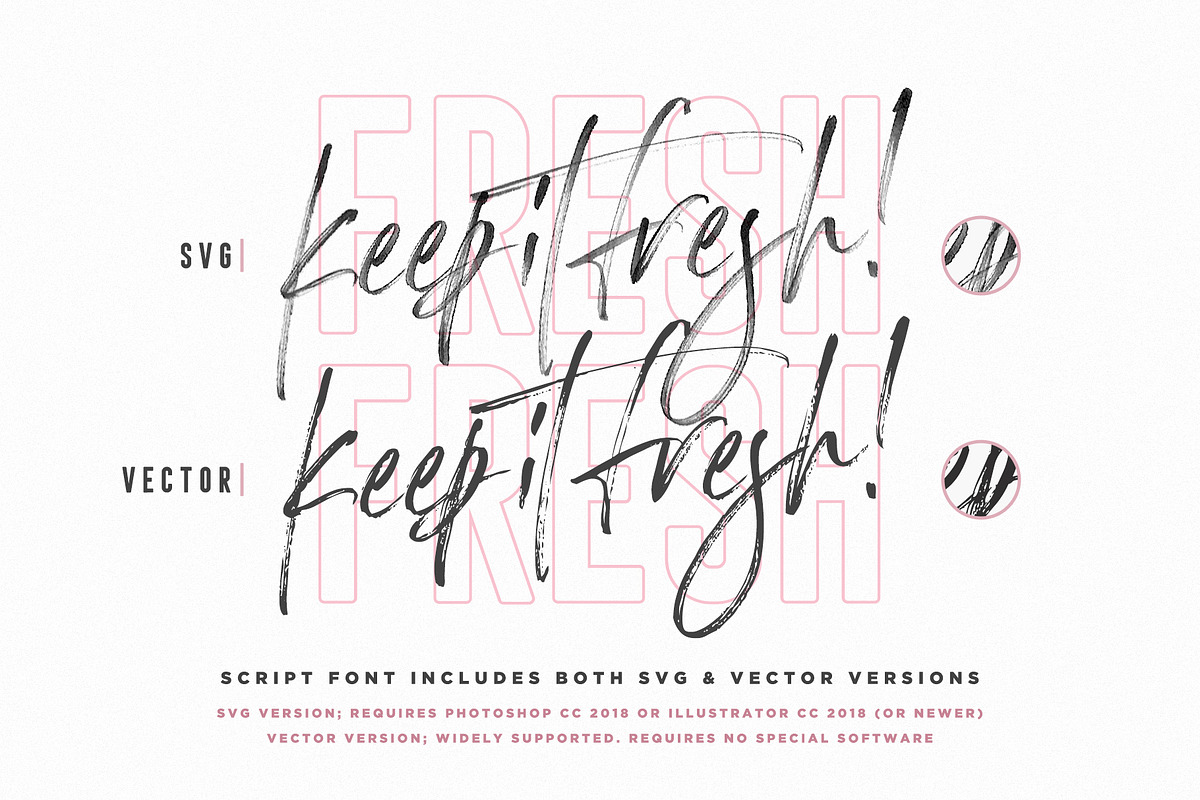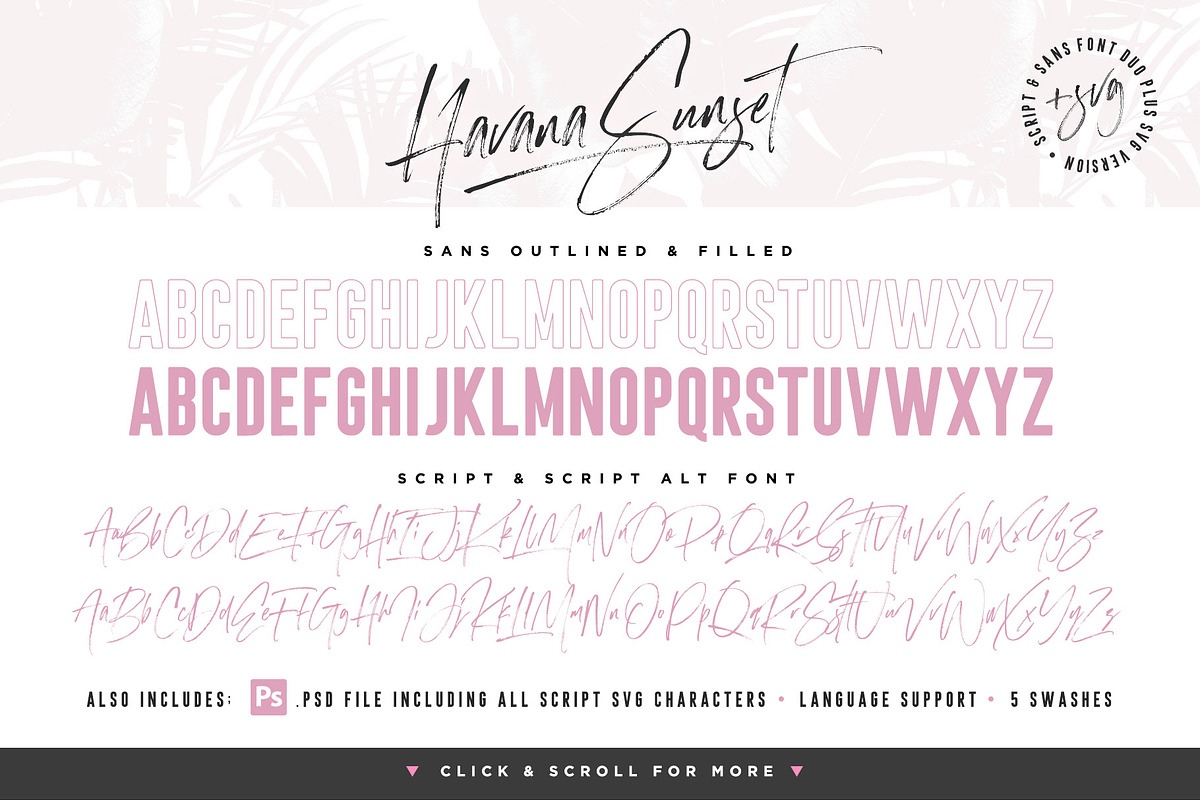
Havana Sunset Font Duo + SVG
Let your hair down and enjoy the ride with Havana Sunset! Analogue meets digital in this font duo, pairing a carefree & textured script font with a trendy all-caps sans-serif - creating the perfect typography contrast for fun, free & stylish design projects.
This font duo is packed full of extra features; The script font includes a full alternate set of characters, as well as an additional SVG version, containing extra high-resolution textures. The sans font includes both a filled and an outlined version, giving you a variety of layout options. It's a lot of fun to experiment with!
1. Havana Sunset Script Font • A free-flowing, textured script font. Use this version if you need the font in a traditional vector format, but still maintaining an authentic rough paintbrushed finish to it's edges.
2. Havana Sunset SVG Font • Use this version of the script font to re-create stunning hand-lettering with high-definition brush textures, completely built in to the font as a transparency. Requires Photoshop CC 2017 or Illustrator CC 2018 (or newer) to use.
3. Havana Sunset Sans Filled Font • A tall, bold, condensed sans font with a big impact. Contains upper-case only characters and a solid body.
4. Havana Sunset Sans Outlined Font • An outlined version of the Havana Sunset Sans font with a hollow body, giving you an additional layout option.
6. Havana Script Alternates • Havana Sunset Script & Havana Sunset Script SVG both include an 'Alt' version, this has replaced all of the script characters with a completely new set. If you wanted to avoid letters looking the same each time to recreate custom lettering, or try a different word shape, simply switch to the 'Alt' fonts for an additional layout option.
8. Swashes • Havana Sunset Script fonts include 5 swashes; use these to underline your script text and add a stylish finishing touch. Swashes are not assigned to any character and need to be accessed through a Glyphs panel. SVG Swashes are only accessible through the .PSD file included.